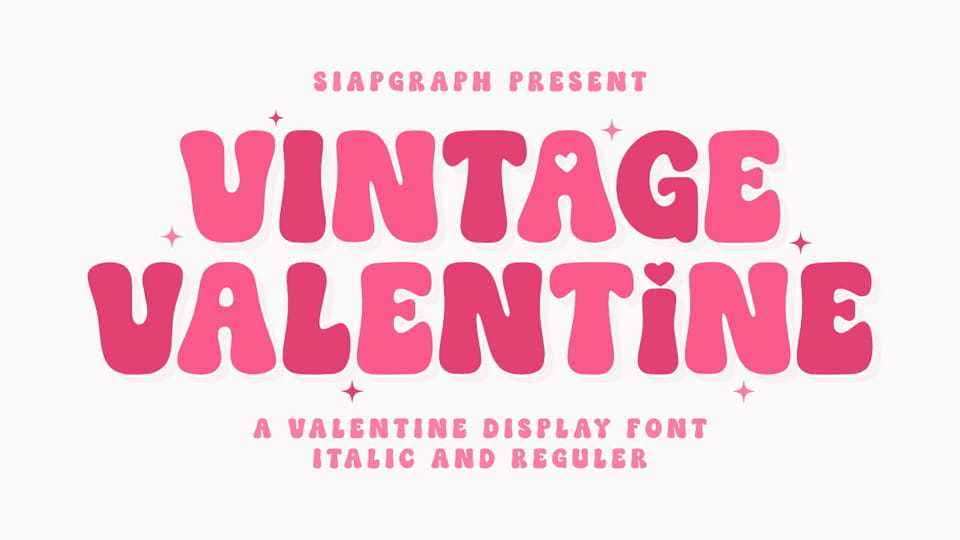
Download Vintage Valentine font, a soft, bubbly display typeface that perfectly blends retro groovy vibes with romantic charm. Vintage Valentine typeface is defined by its plush, rounded letterforms and darling heart-shaped negative spaces.
Designer: SiapGraph